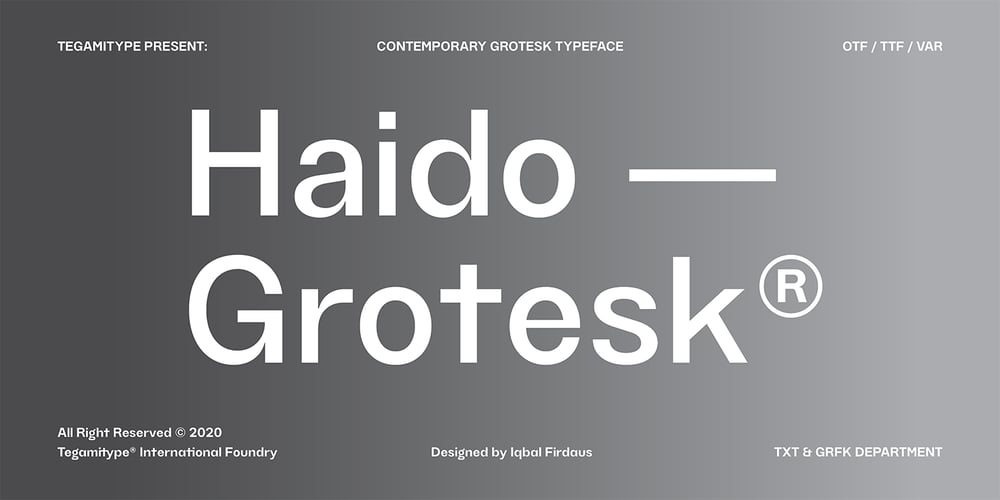
TG Haido Grotesk Font Family was designed by Iqbal Firdaus and published by Tegami Type. TG Haido Grotesk contains 19 styles and family package options. Haido is a new contemporary grotesk typeface influenced by post-modernism style. This typeface is has very neutral look, thus making this new typefaces has versatility for use in all kinds of modern design. Haido comes with 18 Styles including 9 Weight, italic and variables font. The small detail of inktrap in this typeface, making Haido is has high legibility in small size and very useful especially for printing needs. And last but not least, Haido has several alternates characters, ligatures and covered more than 100 languages including 2 script latin and cryllic.